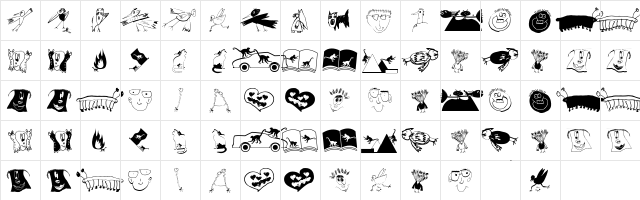
KarlasUndOpas Regular
Design Context for KarlasUndOpas Typeface
KarlasUndOpas is a composed and adaptable typeface that performs quietly and consistently across a wide range of design contexts.